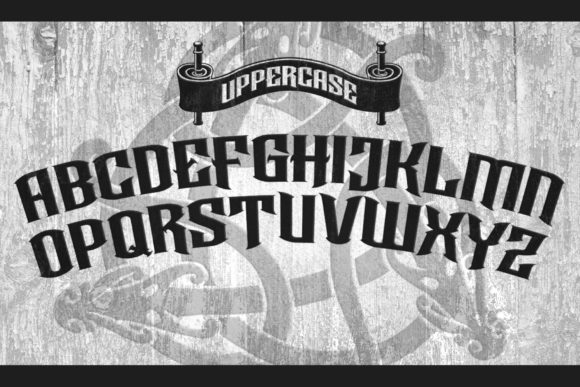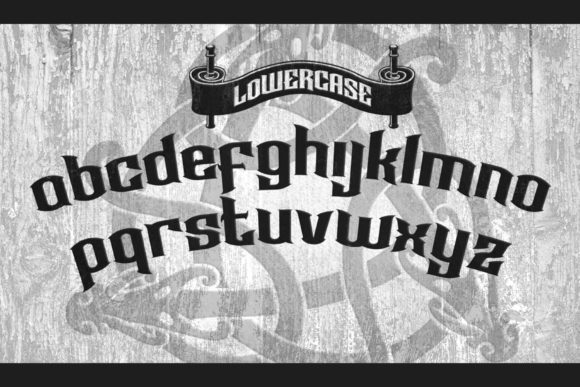
Norseman Font Download: Display Type Preview
Norseman Font is a cool and adaptable display font. This font is suitable for designs such as t-shirts, sportswear, posters, logos, advertisements, clothing, and more.
Norseman Font is a cool and adaptable display font. This font is suitable for designs such as t-shirts, sportswear, posters, logos, advertisements, clothing, and more. Whatever the topic, this font will be a great asset to your font collection, as it has the potential to enhance any creation.